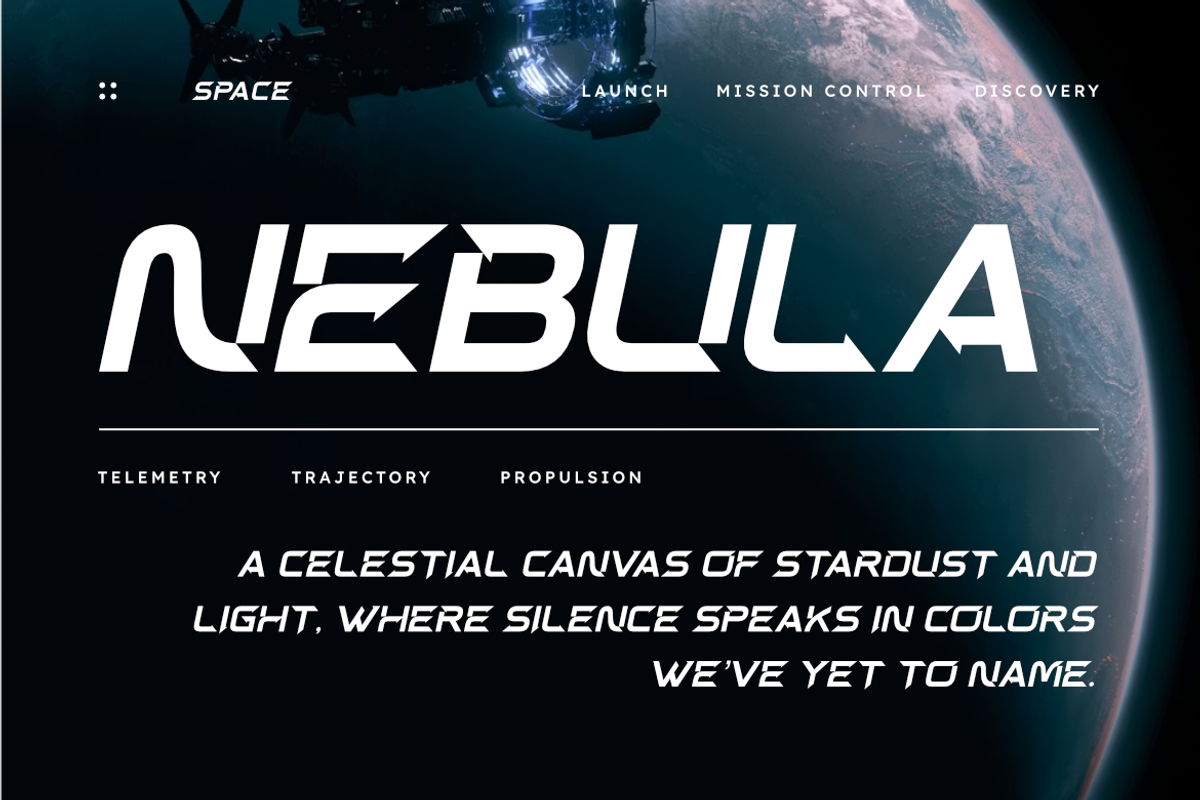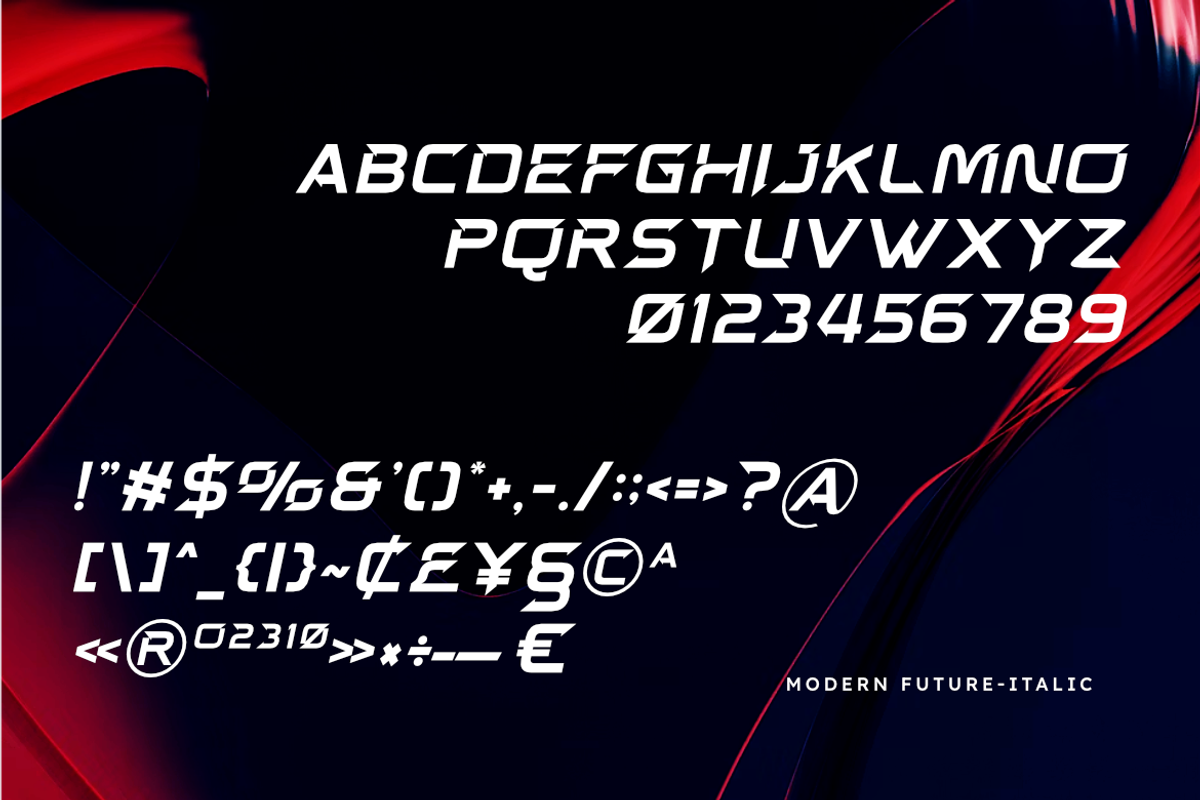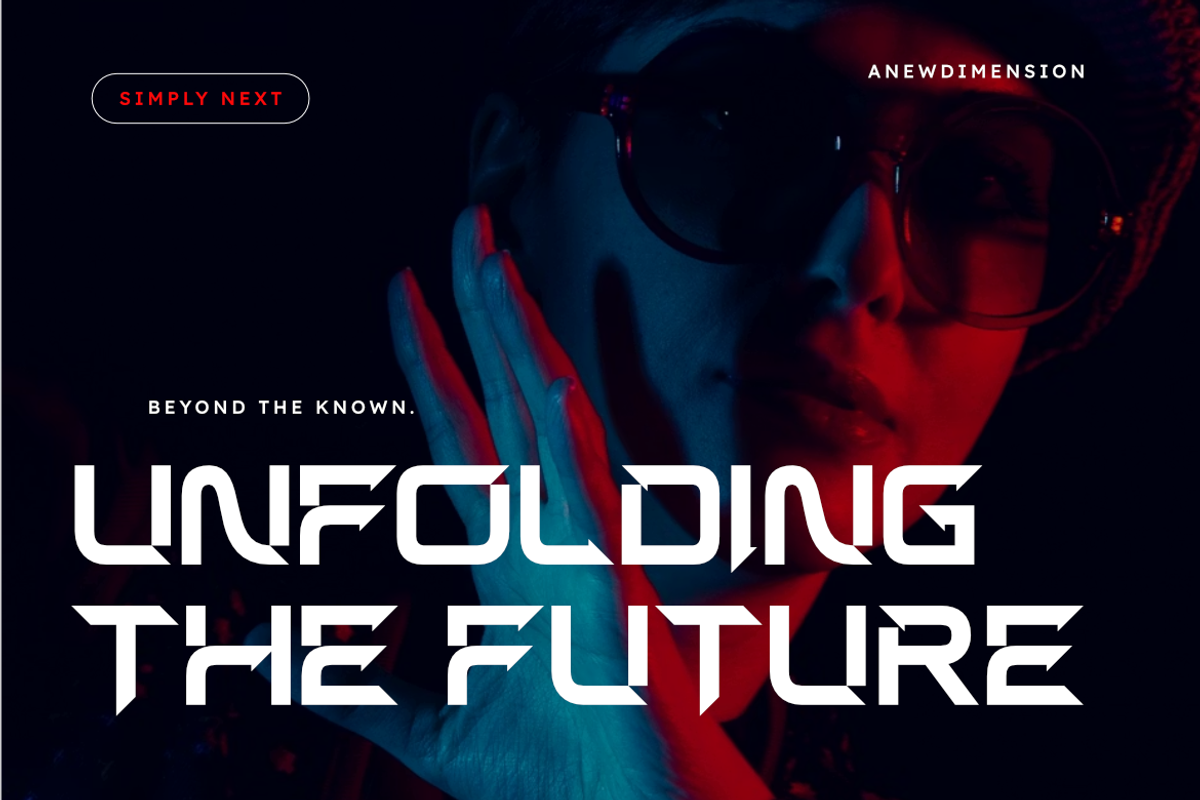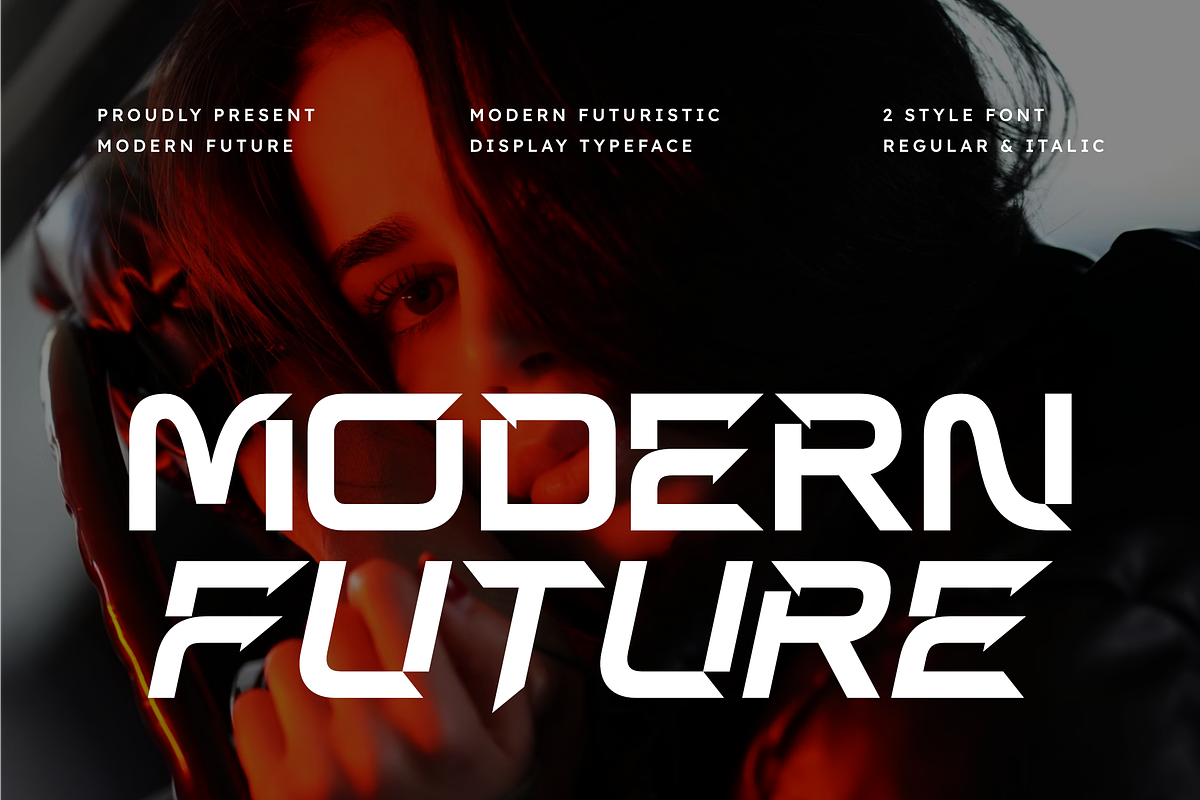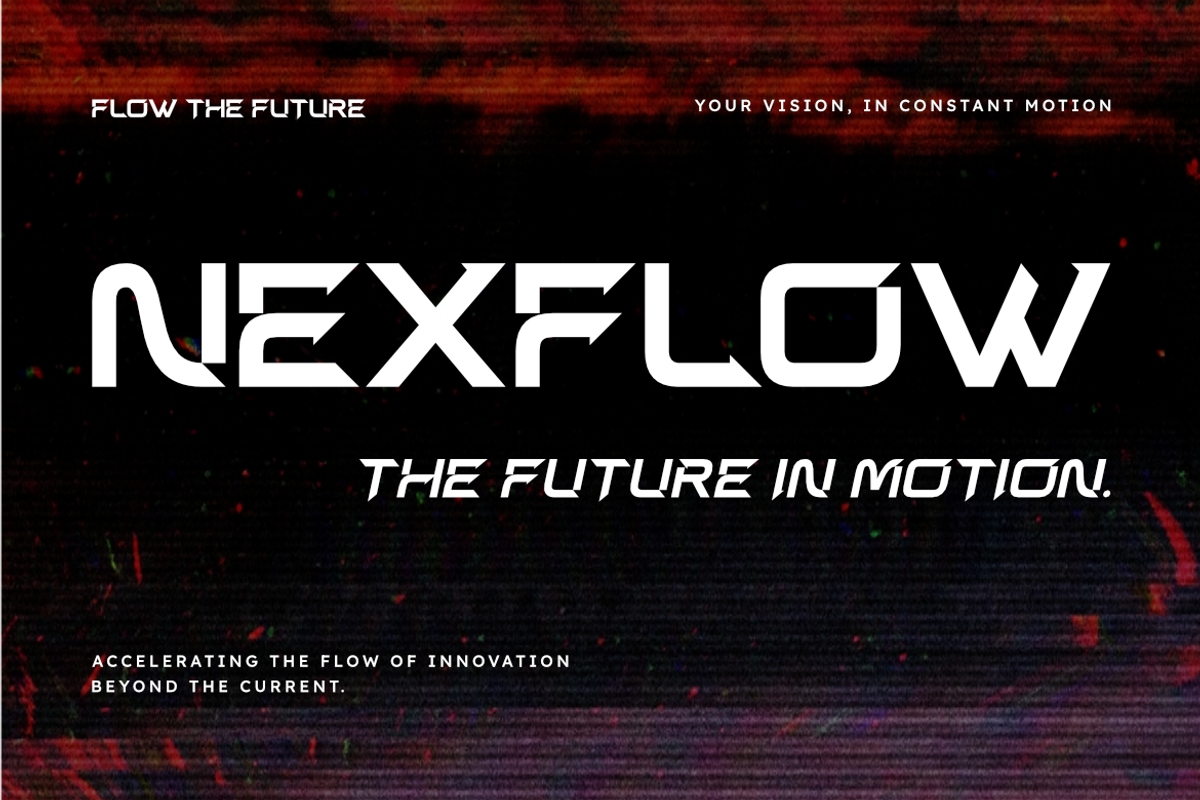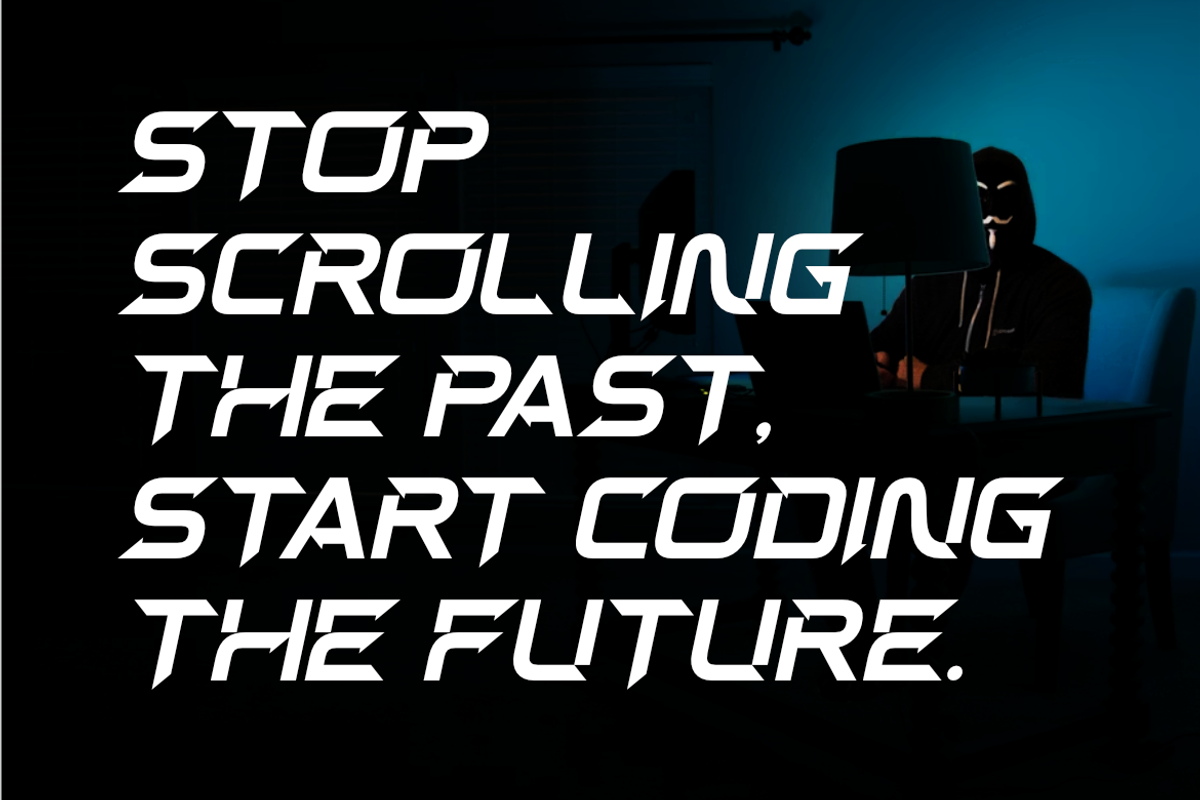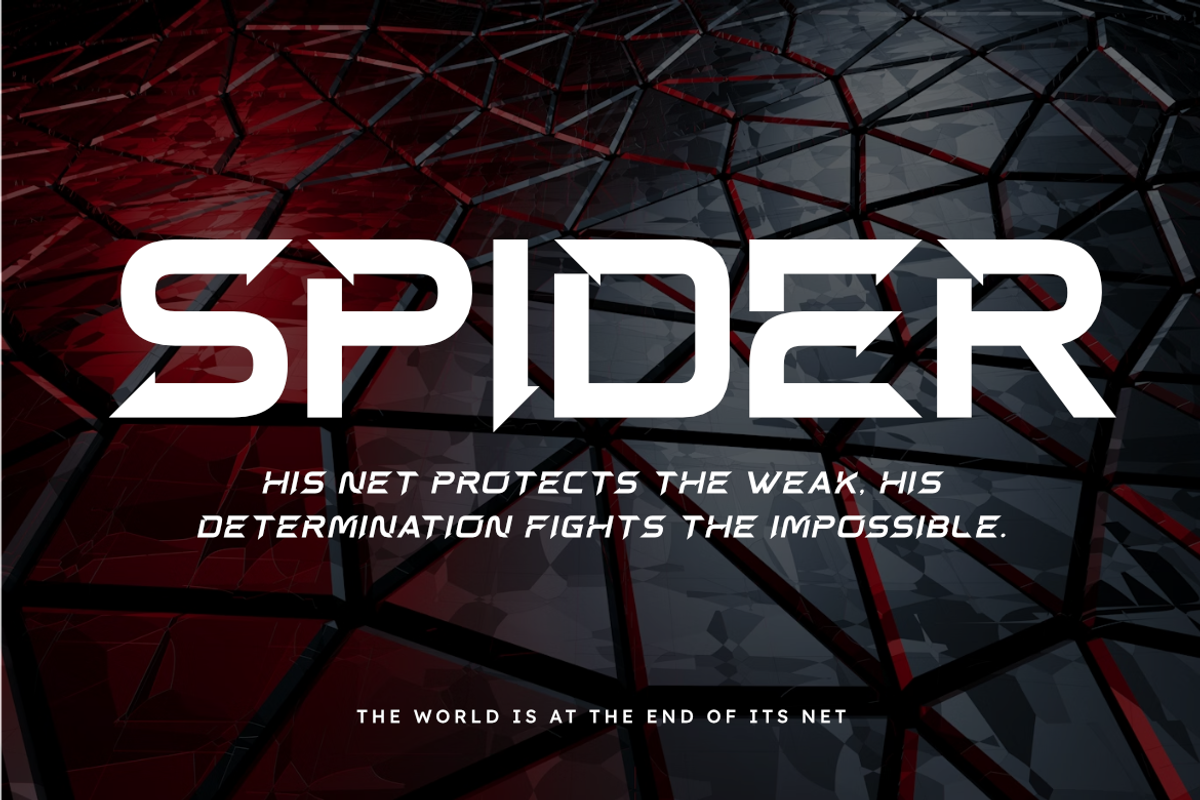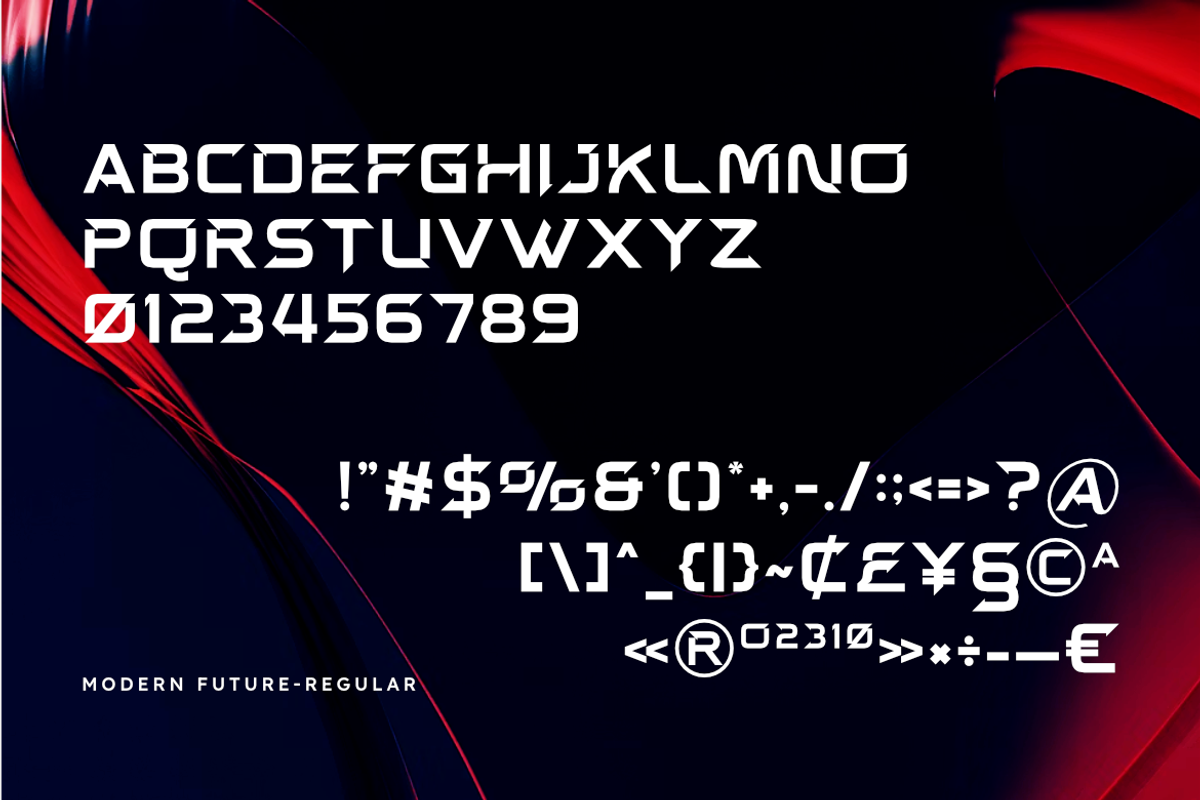
Modern Future | Modern Futuristic
Elevate your designs to the next dimension with Modern Future, a dynamic display typeface from Masyafi Studio. Inspired by the high-speed aesthetics of modern racing and the precision of aerospace engineering, Modern Future is built for creators who want to define what's next.
Modern Future is more than just a font—it’s a visual statement of progress. Its sharp terminals and sleek leaning forms make it perfect for e-sports team identities, futuristic gaming UI, tech-focused apparel, and bold automotive marketing. Whether you’re designing for a sci-fi blockbuster or a disruptive startup, Modern Future delivers the speed and power your brand needs.
- Gaming & eSports: Team logos, streaming overlays, and clan branding.
- Technology & AI: Future-proof logos and innovation-focused headers.
- Sports & Automotive: High-speed graphics, racing liveries, and gym branding.
- Modern Editorial: Sci-fi book covers, futuristic posters, and movie titles.
- Uppercase & Numbers
- Multilingual Support & Punctuation